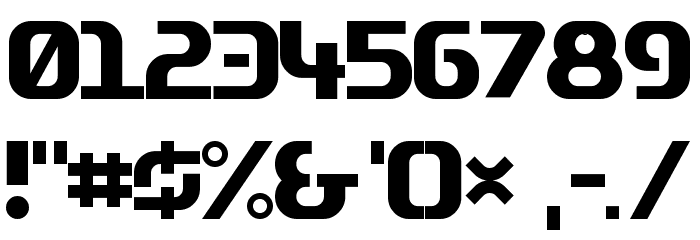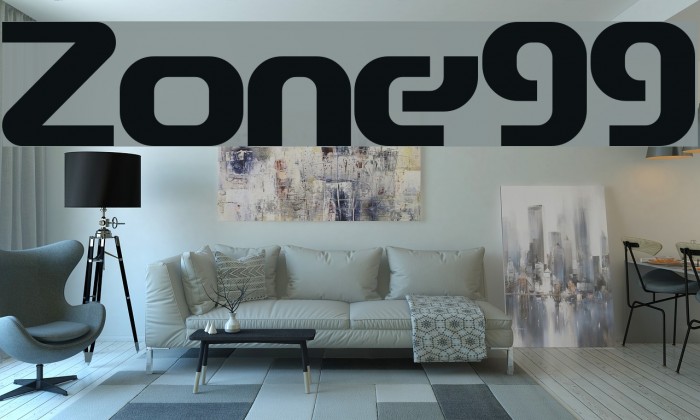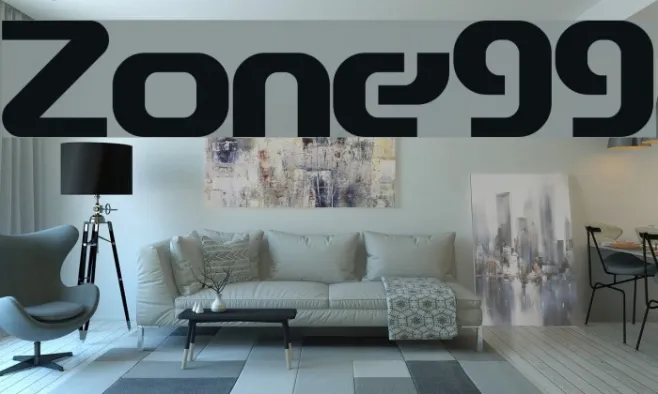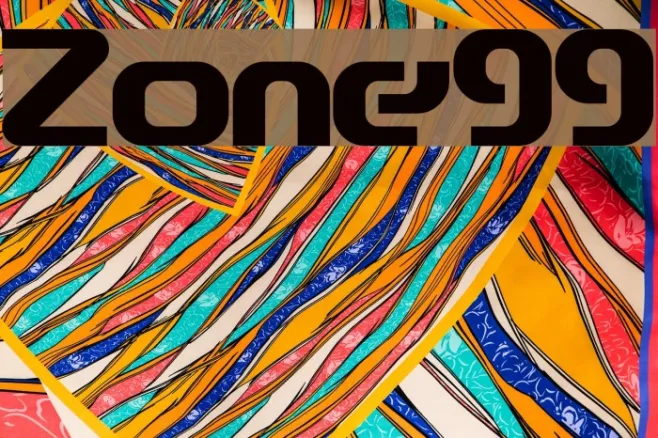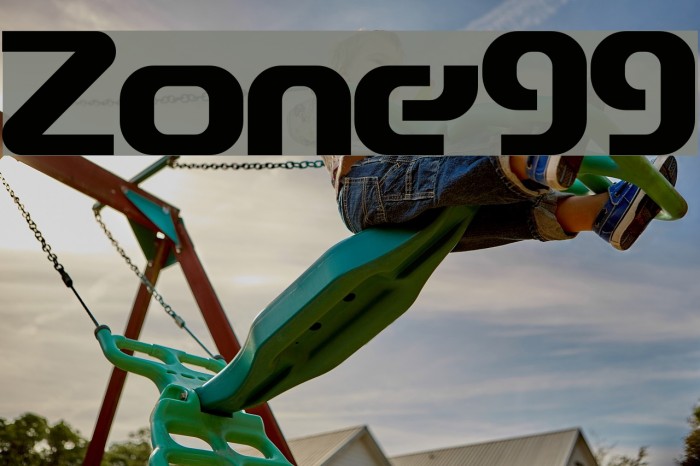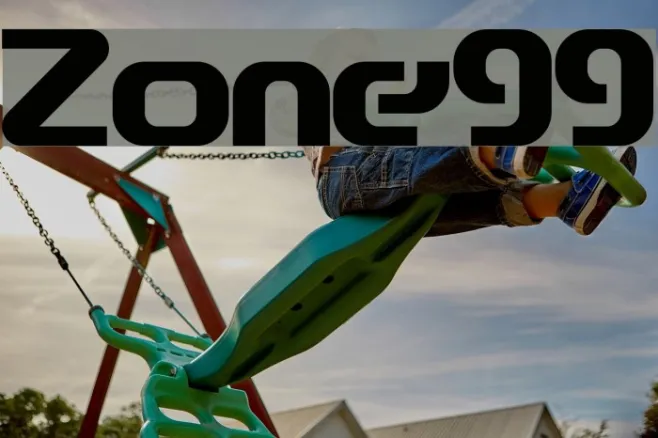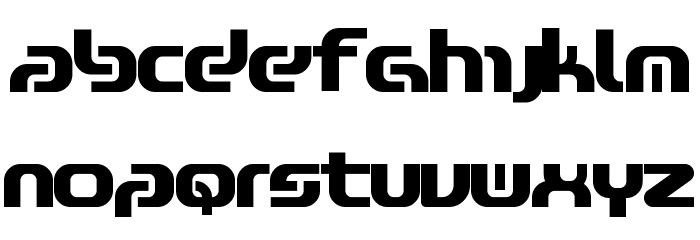
Zone99 Font
Zone99 Description
This font features a bold, futuristic design with geometric shapes and a strong presence. The characters are constructed with thick, uniform strokes, creating a sense of stability and modernity. The uppercase letters are particularly striking, with a blocky appearance that emphasizes their boldness. The lowercase letters maintain the same geometric style, offering a cohesive look across both cases. Numbers and special characters follow the same design principles, ensuring consistency throughout. The overall style is reminiscent of digital or sci-fi themes, making it ideal for projects that require a modern and impactful aesthetic.
| Proposed Projects | Ideal for tech-related branding, sci-fi book covers, video game titles, and digital media. |